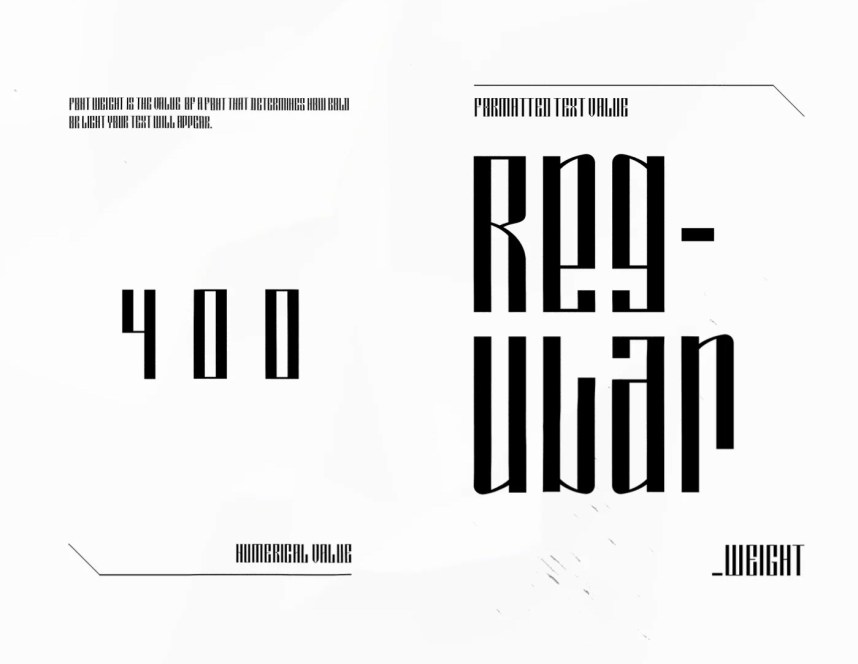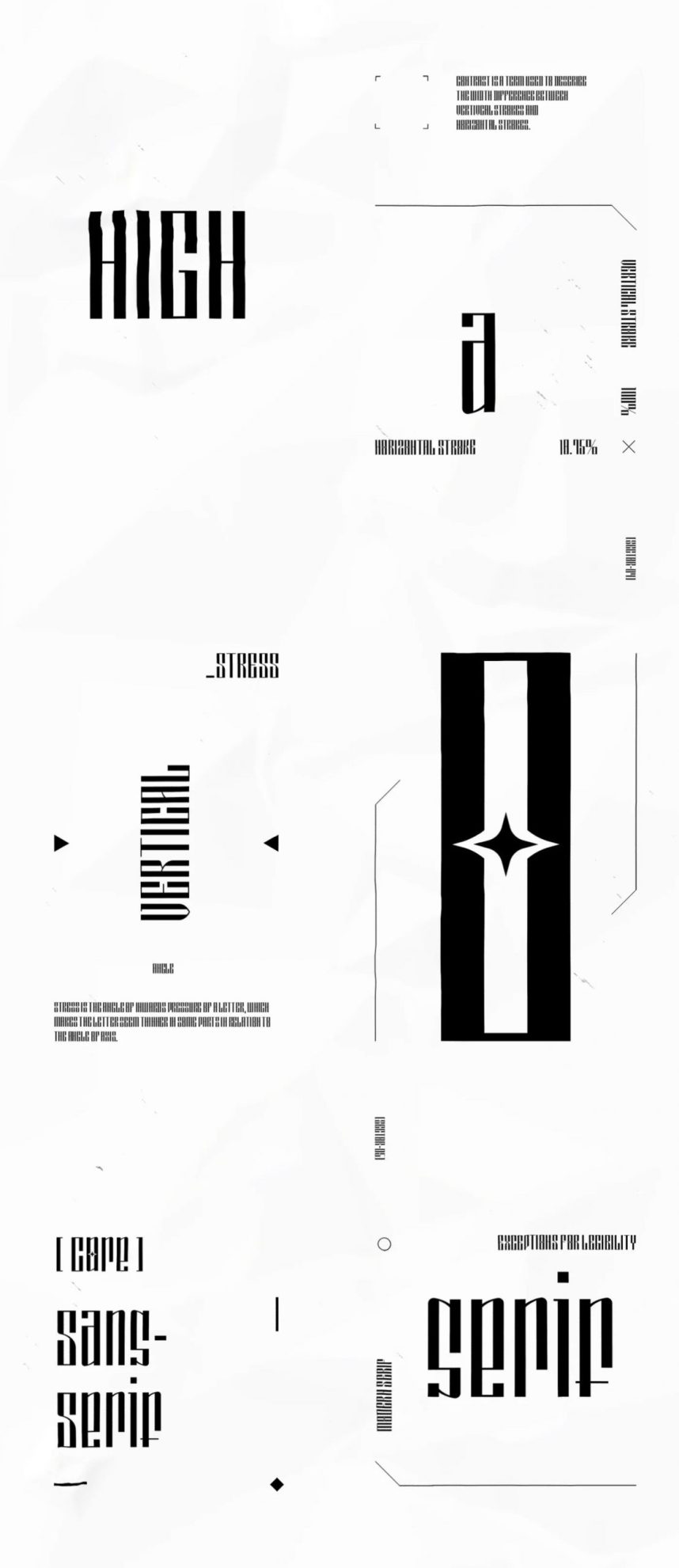
Congregation Font
Congregation Display Font
This is a geometric, and minimalistic display font crafted & designed by retr0. It has a elegant, classy look and modern. It’s a great font for fashion, apparel projects, signature, album cover, logo, branding, magazine, social media, & advertisements, but also works great for other projects.